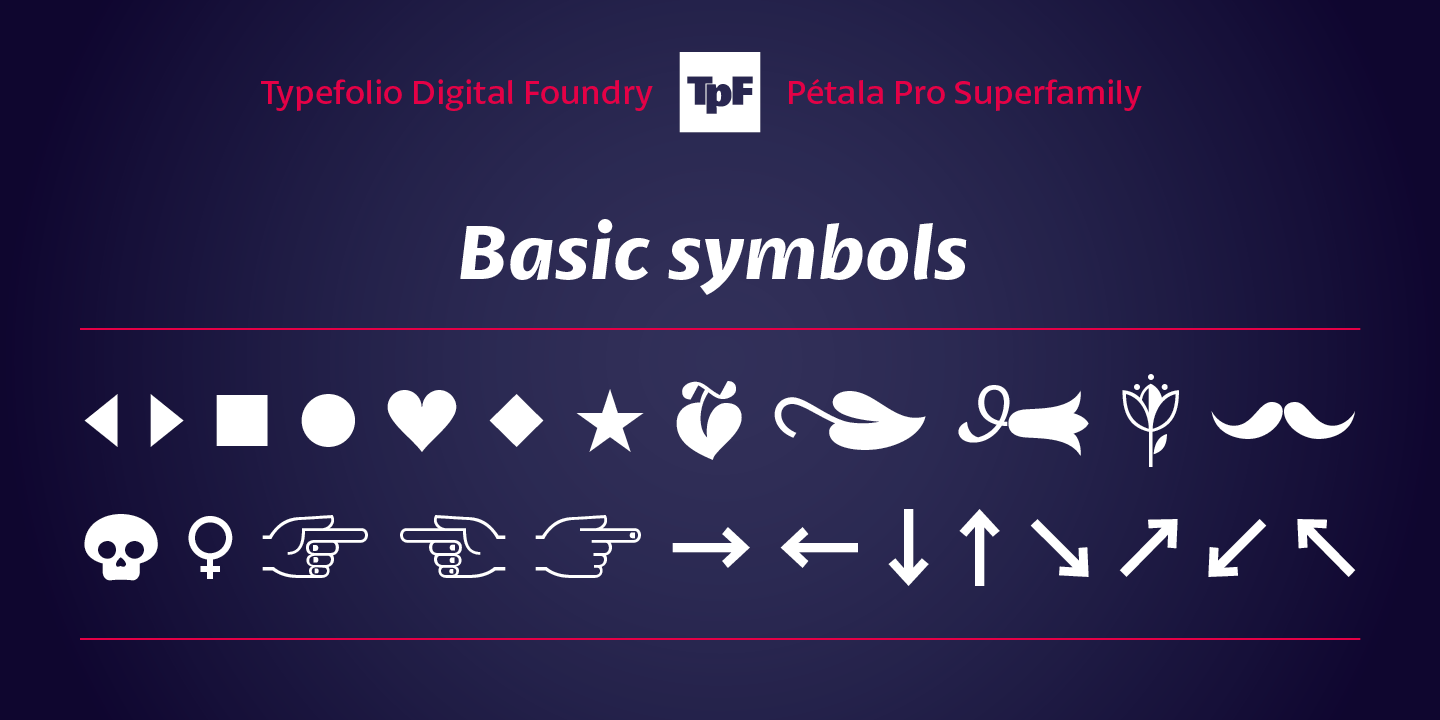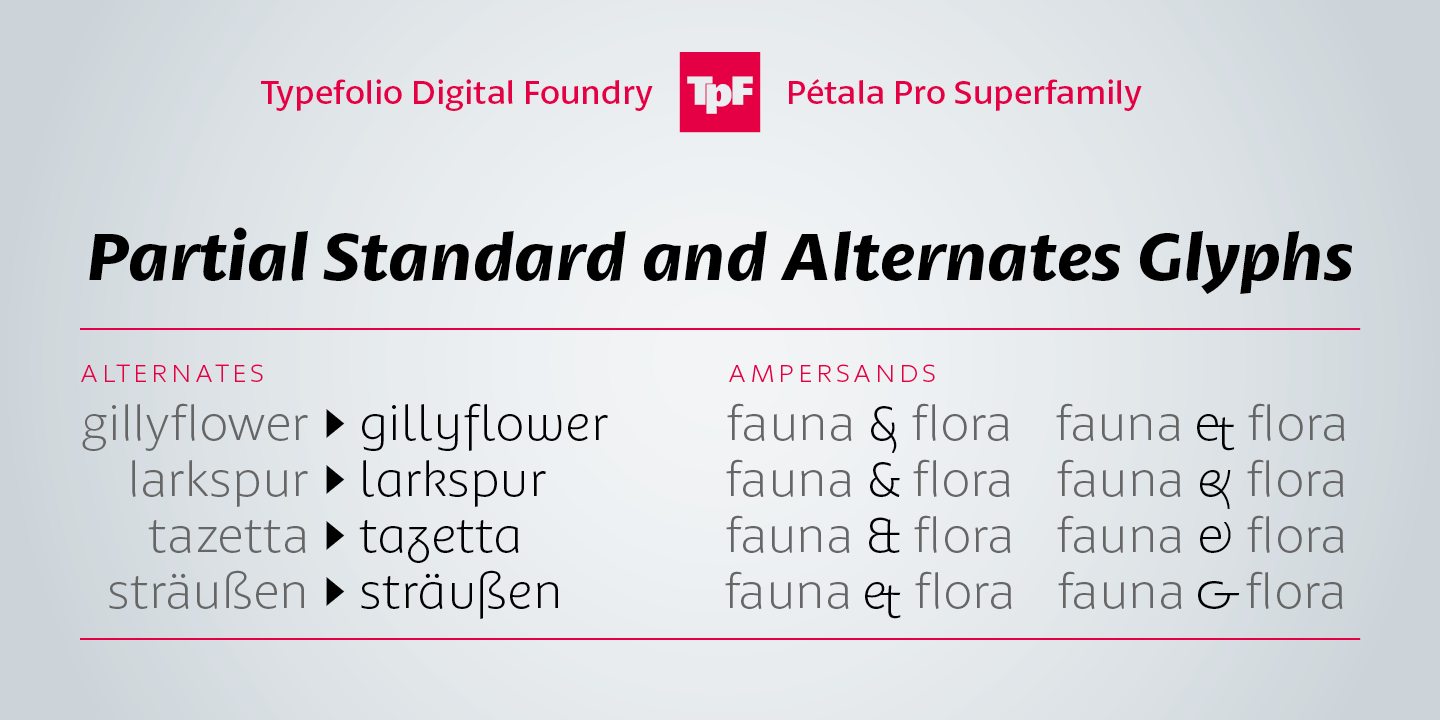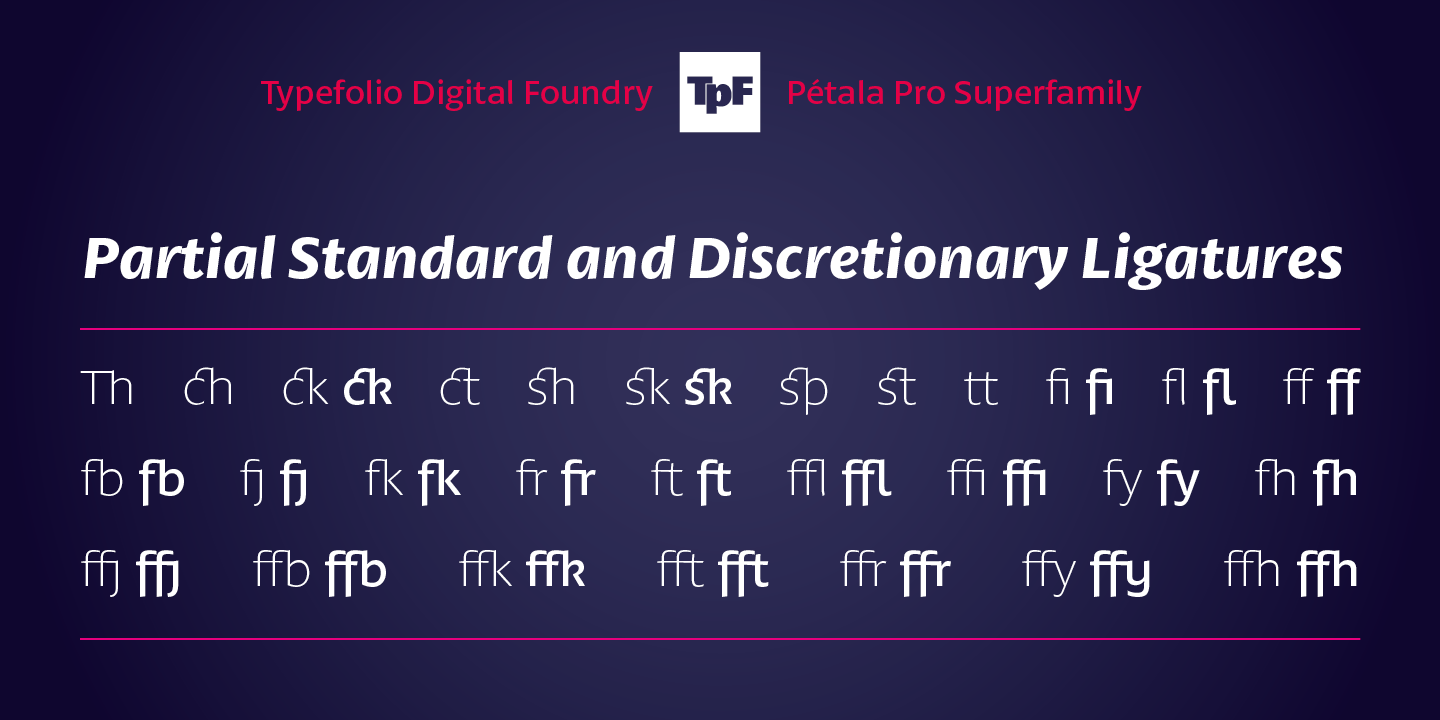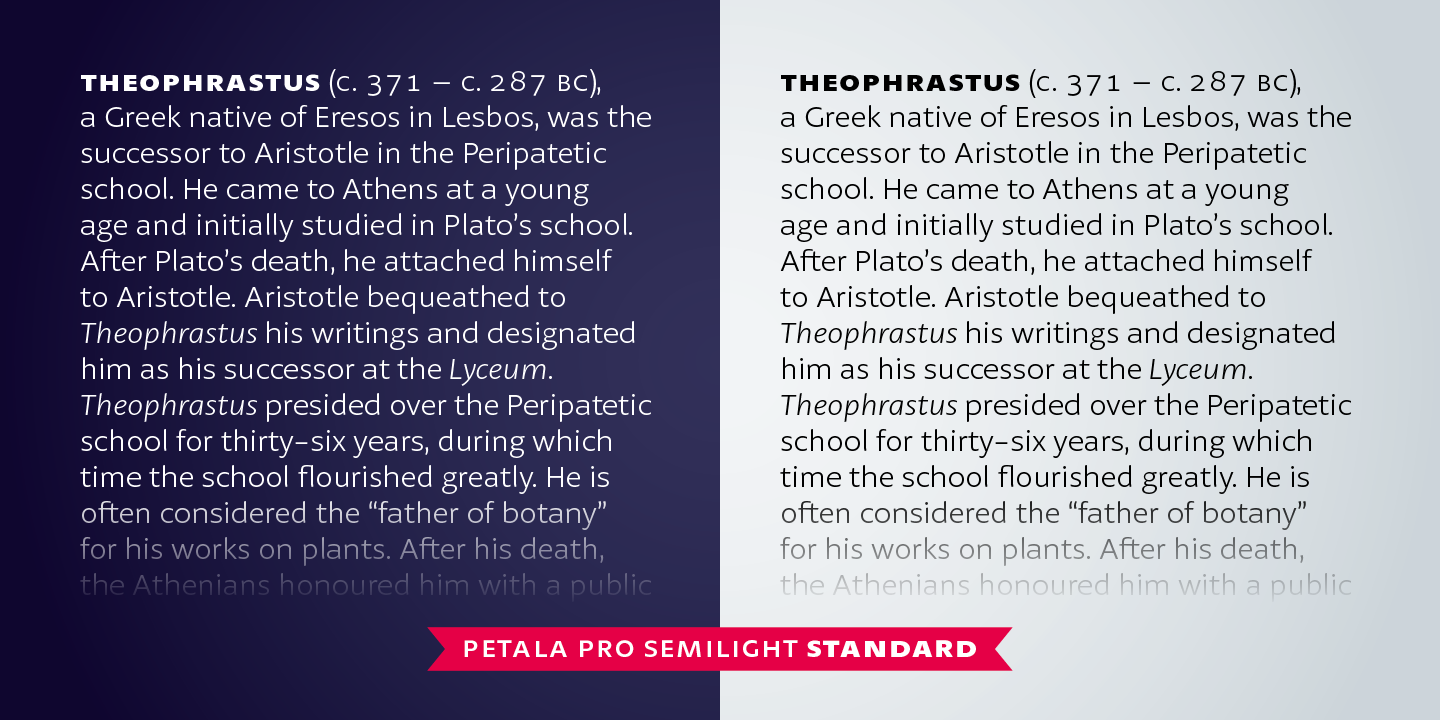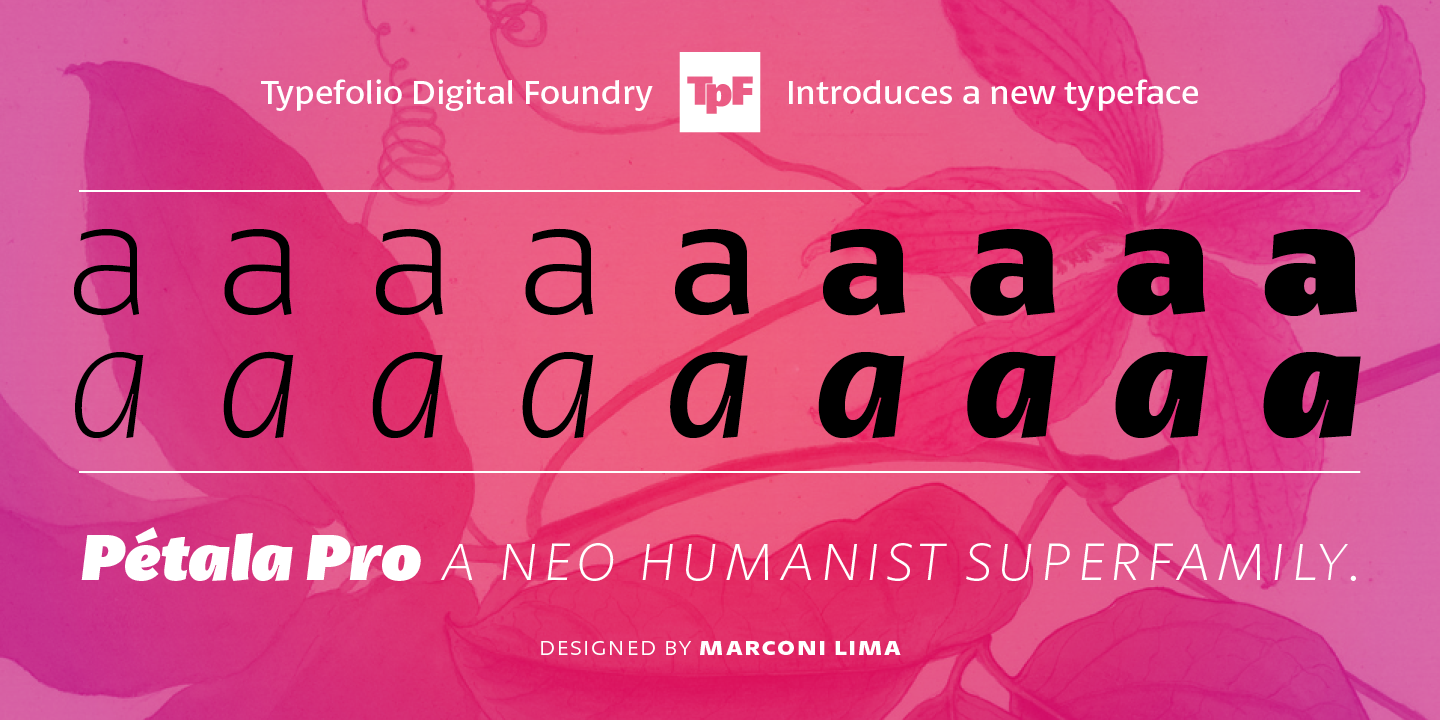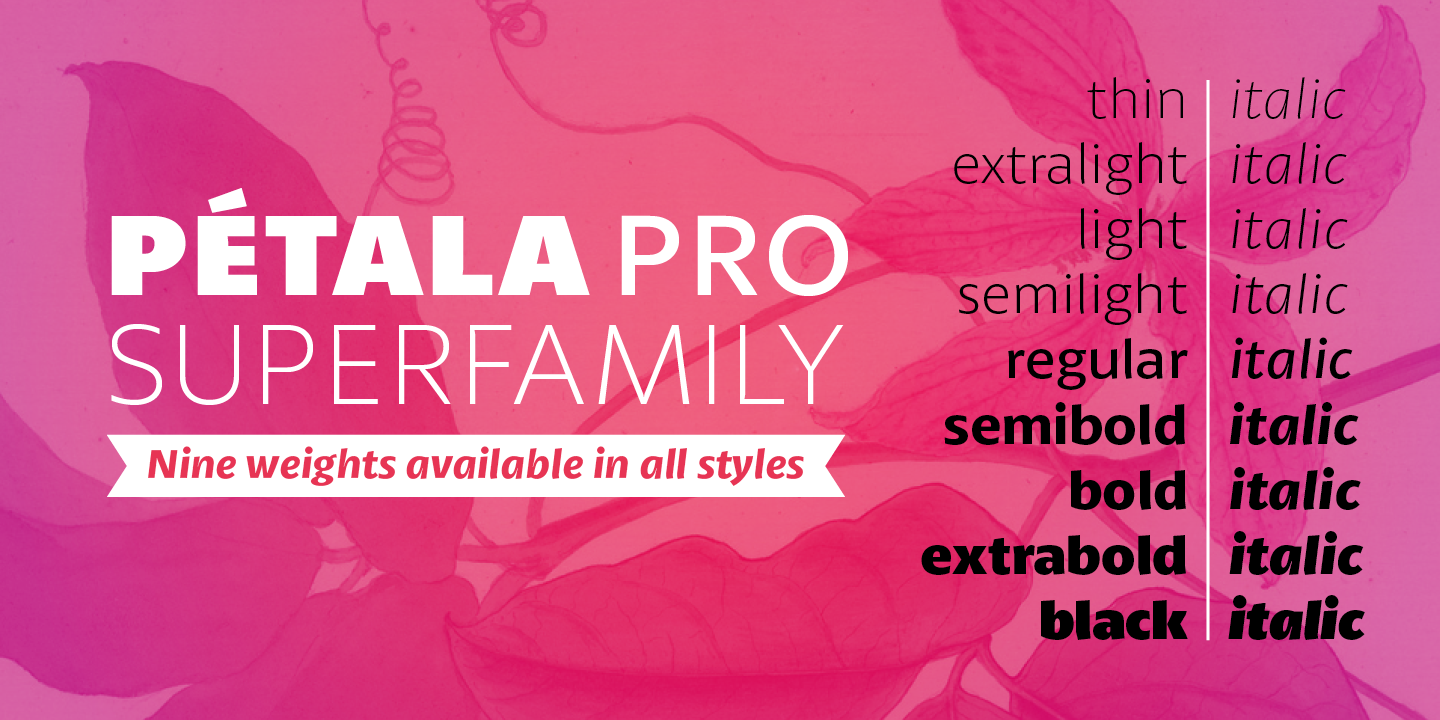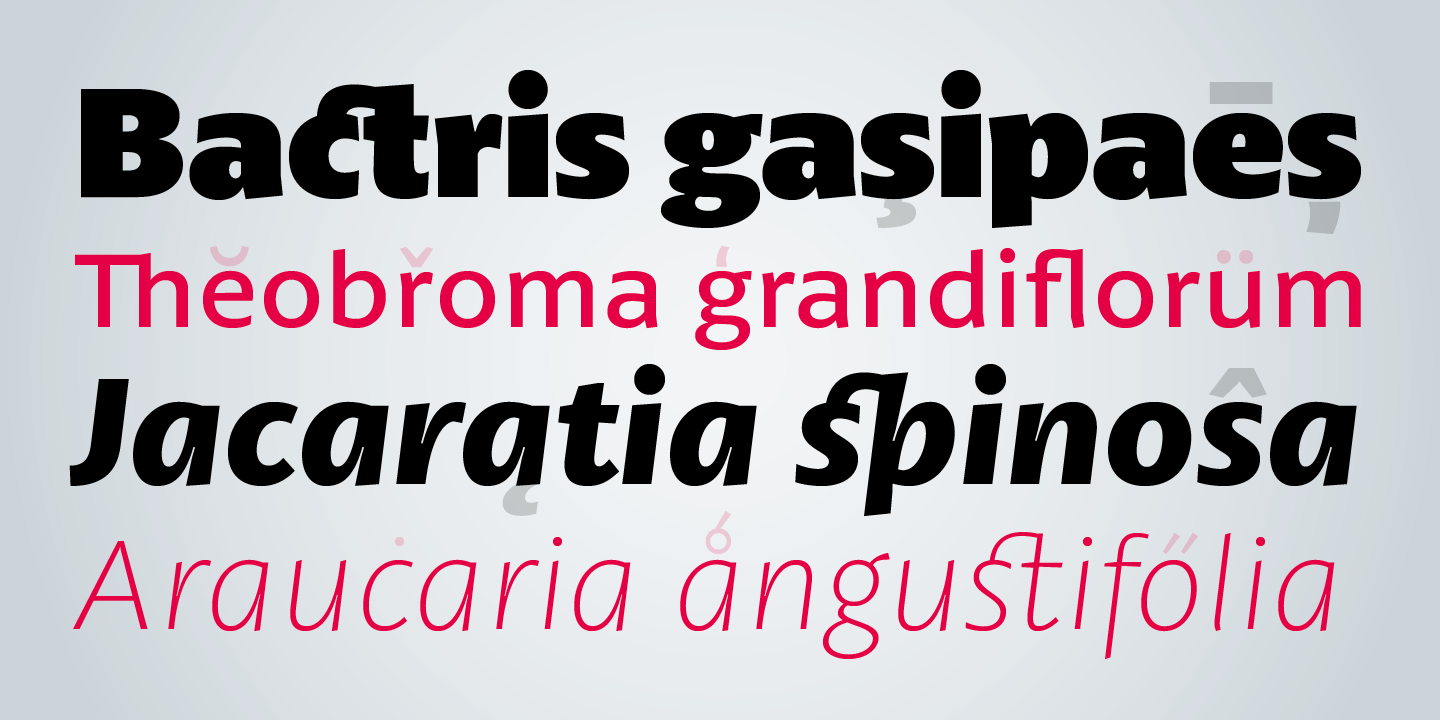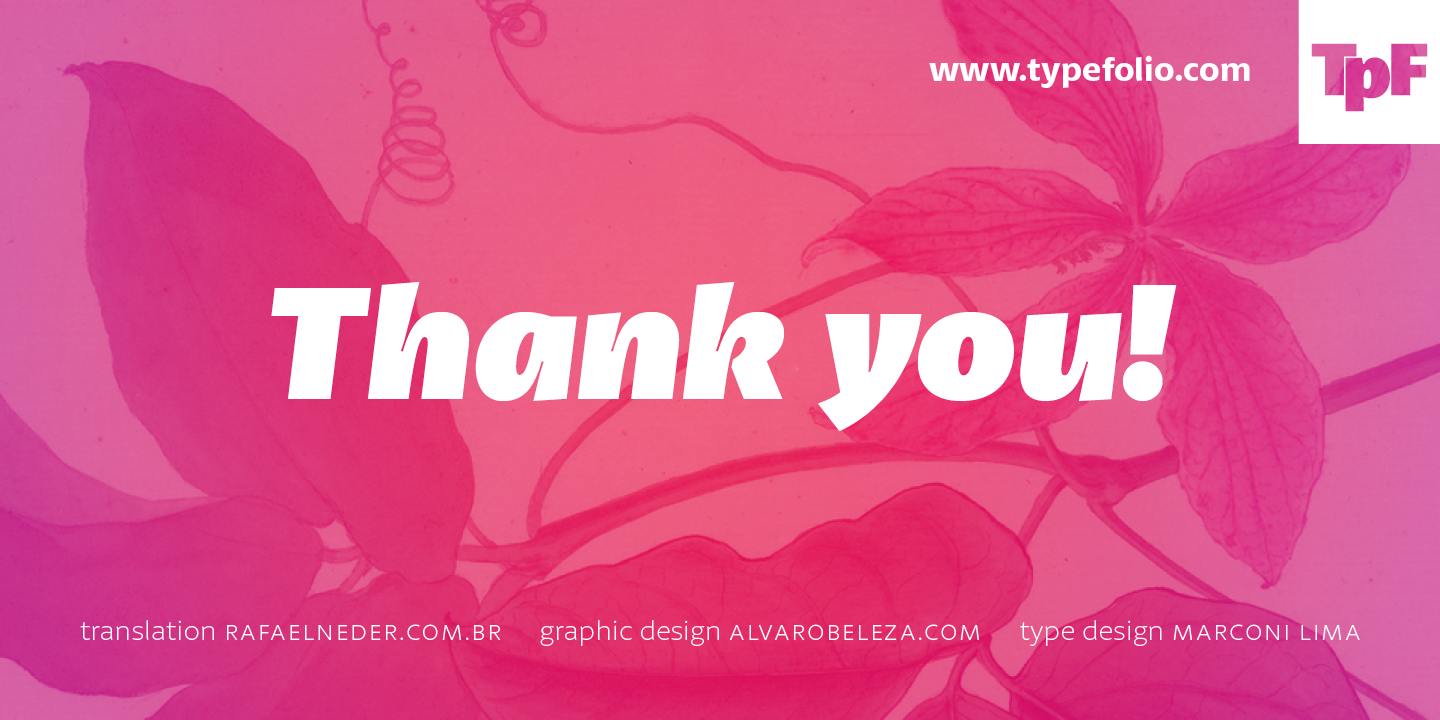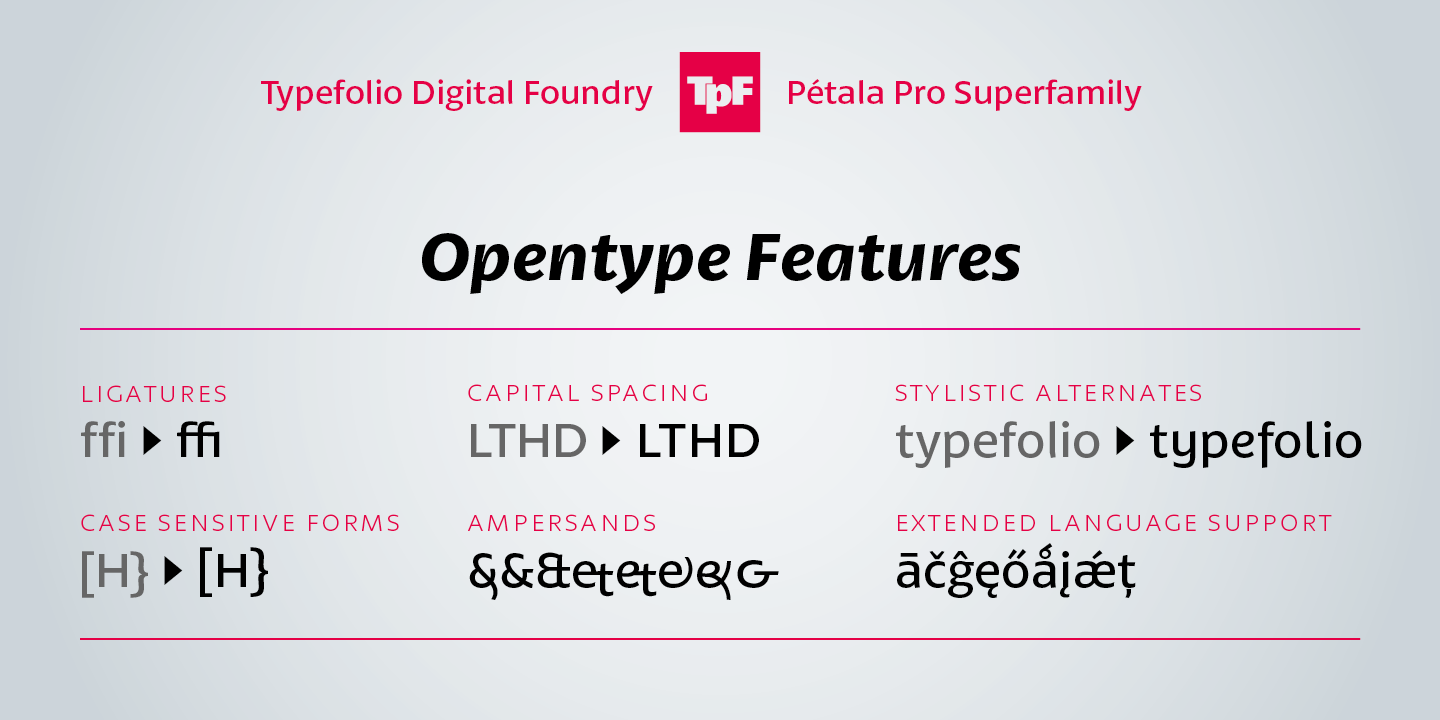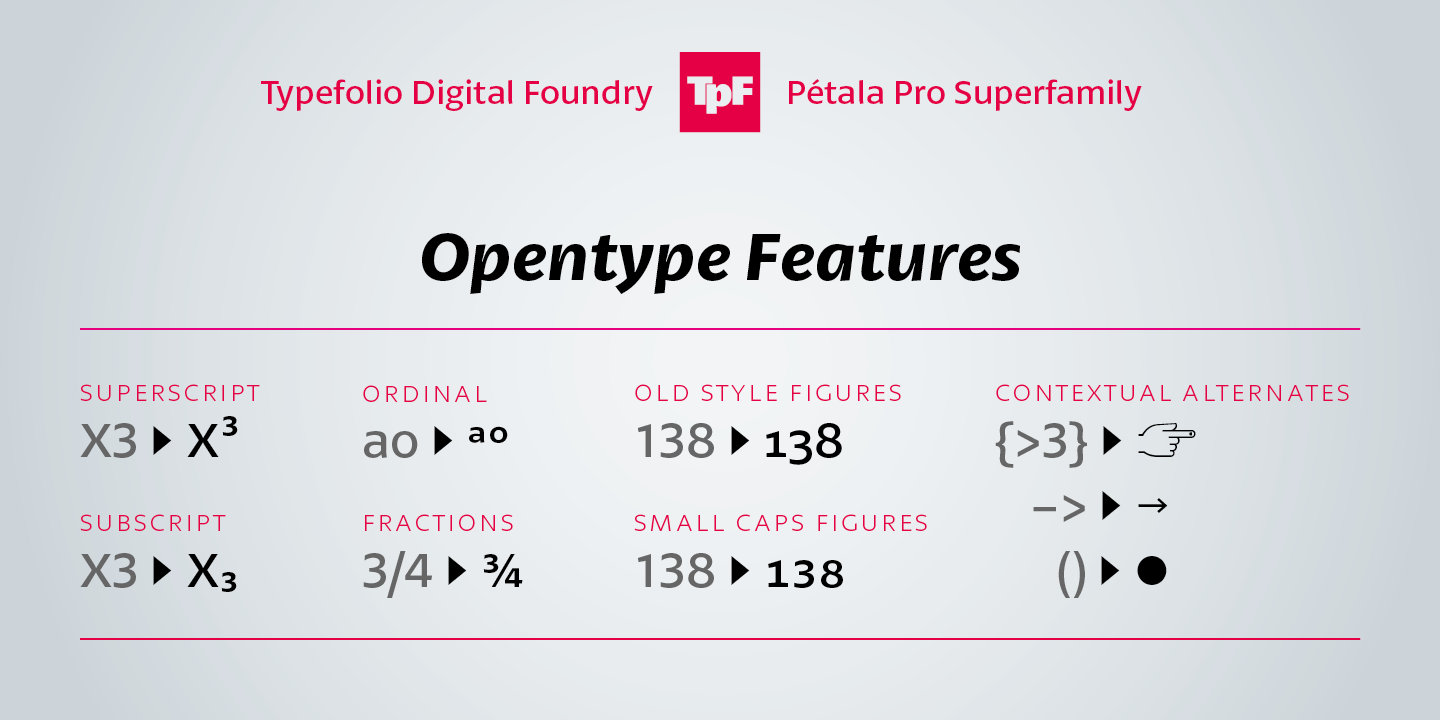
Petala Pro Family (18 fonts)
Petala Pro is an excellent font for many mediums such as print, video, mobile and web. Pétala Pro is the ideal choice for editorial, advertising, branding and corporate identity.